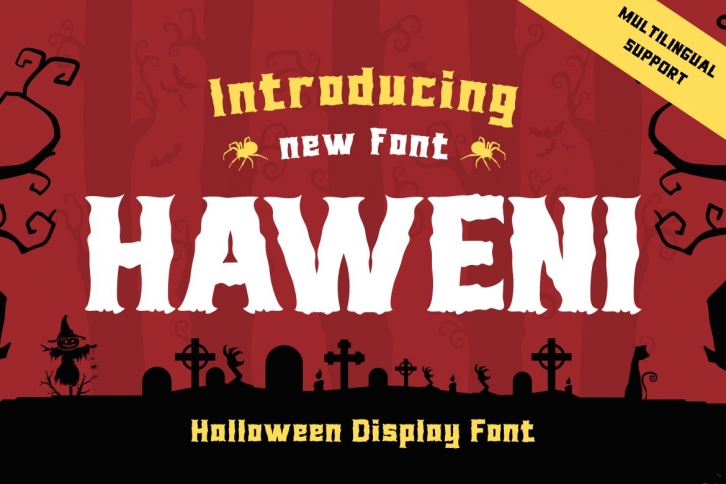
Haweni is a trendy and unique font with an authentic style. It was designed by twinlettertype and it's a great choice for creative people who need such a font. It was released on September 4, 2022 and the file size is 17.36 MB. Haweni will add an organic vibe to any design idea!